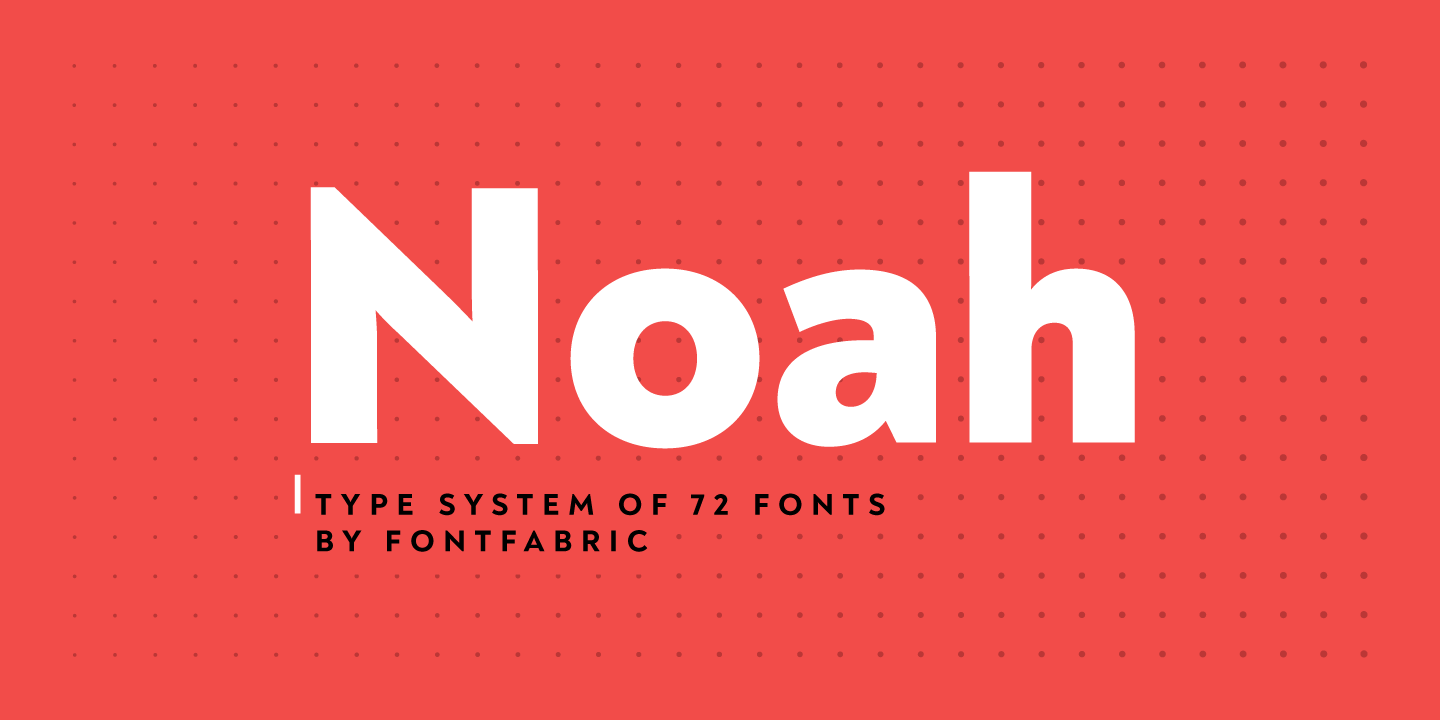
Noah Font is perfect for friendly branding, approachable logos, casual websites, children's publications, community newsletters, family-oriented businesses, educational materials, warm marketing campaigns, and personal communication projects. This welcoming typeface brings genuine warmth and human connection to projects requiring trustworthy, accessible typography that feels both professional and personable.
What makes Noah Font exciting is its perfect balance between professional reliability and human warmth that creates instant trust and emotional connection with audiences. The font features friendly letterforms with gentle curves and approachable character that reflects genuine care and authentic communication values. Its trustworthy personality and versatile nature make it irresistible for brands seeking to build meaningful relationships with customers through honest, heartfelt visual communication that feels both competent and caring.
The Noah Font family includes welcoming weights and friendly styles: Light, Regular, Medium, Semibold, Bold, and corresponding Italic variations with rounded alternates and friendly ligatures. Each weight maintains the font's approachable character while offering designers complete flexibility for community-focused branding and relationship-building communication across various touchpoints.
Whether you're designing for community organizations or family businesses, Noah Font Free Download offers designers a trustworthy, relationship-focused typeface solution. The font's friendly aesthetics and warm styling make it ideal for healthcare providers, educational institutions, non-profit organizations, and service-oriented businesses. Its reliable presence ensures your message communicates care and competence while maintaining excellent readability. The comprehensive character set includes multilingual support and friendly symbols, making it perfect for creating welcoming headlines and brand identities that build genuine connections with audiences seeking authentic, trustworthy relationships and caring professional services.